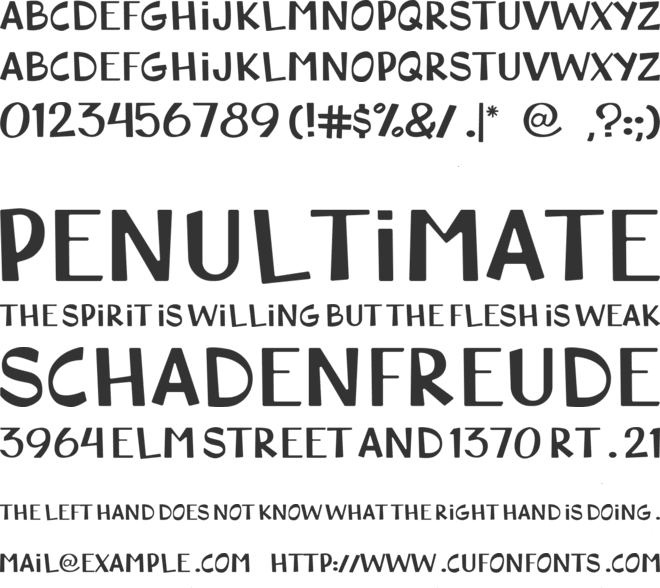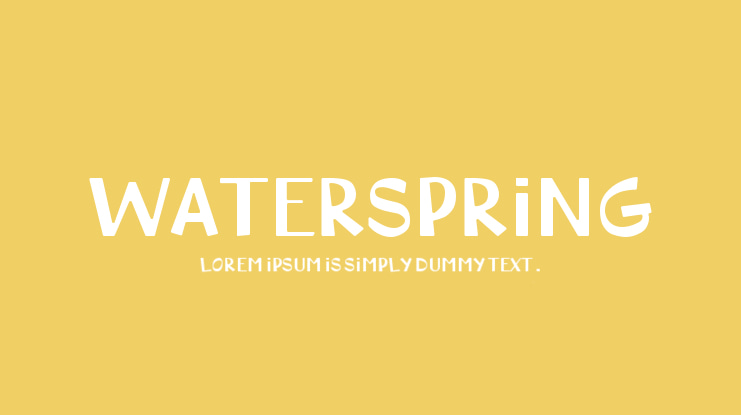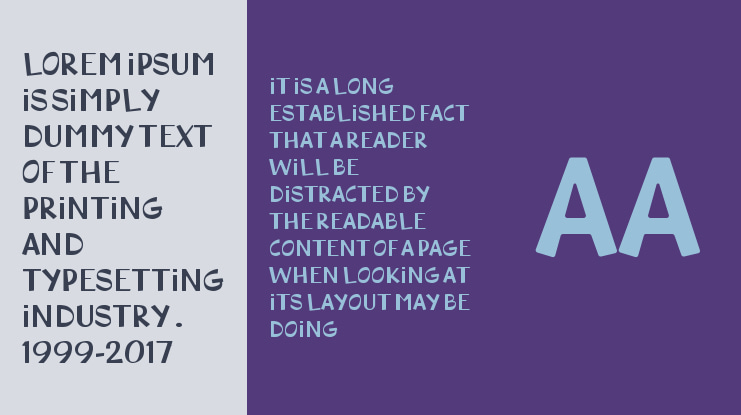
waterspring Font
WaterSpring is The unique characteristics, make it very suitable for various purposes such as quotes, t-shirt designs, flyers, youtube channels, labels, logos etc.